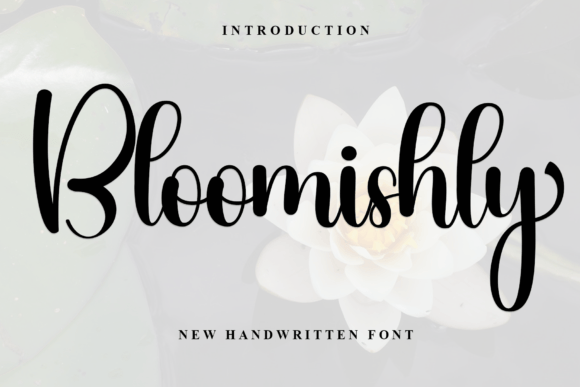
Bloomishly Font: Elevate Your Designs with Elegance and Sophistication
In the world of typography, a font can make or break the visual appeal of a design. For those seeking a touch of elegance and sophistication, the Bloomishly Font is an exceptional choice. This beautiful, refined handwritten font is perfect for creating stunning logos, branding materials, invitations, stationery, wedding designs, social media posts, and more.
The Essence of Bloomishly Font
Bloomishly Font is characterized by its classy, elegant, and modern appearance. Its refined strokes and beautiful ligatures make it an ideal choice for designers looking to add a touch of sophistication to their work. The font’s versatility allows it to be used across various design applications, from print to digital media.
Key Features of Bloomishly Font
- Handwritten Elegance: The font boasts a beautiful, handwritten appearance that adds a personal touch to any design.
- Classy and Modern: Bloomishly Font strikes the perfect balance between classic elegance and modern sophistication, making it suitable for a wide range of design projects.
- Versatile: From logos and branding to invitations, stationery, and social media posts, this font can be used across various design applications.
Applications of Bloomishly Font
The versatility of Bloomishly Font makes it an excellent choice for numerous design projects. Here are some of the ways you can utilize this beautiful font:
Design Applications
- Logos and Branding: Create a lasting impression with a logo that exudes elegance and sophistication.
- Invitations and Stationery: Add a touch of refinement to your invitations, business cards, and other stationery.
- Wedding Designs: Make your wedding designs truly special with a font that embodies love, elegance, and joy.
- Social Media Posts: Elevate your social media presence with beautifully crafted posts that showcase your brand’s personality.
Why Choose Bloomishly Font?
With numerous fonts available, why should you choose Bloomishly Font for your design projects? Here are some compelling reasons:
Why Bloomishly Font Stands Out
- Unique and Exclusive: Bloomishly Font offers a distinctive appearance that sets it apart from other fonts.
- High-Quality Design: The font is crafted with attention to detail, ensuring a high-quality appearance in any design.
Tips for Using Bloomishly Font Effectively
To get the most out of Bloomishly Font, consider the following tips:
Best Practices for Using Bloomishly Font
- Pair with Complementary Fonts: Combine Bloomishly Font with other fonts that complement its style to create visual interest.
- Adjust Font Sizes: Experiment with different font sizes to create a hierarchy of information and add depth to your design.
- Use Ligatures and Glyphs: Take advantage of the font’s ligatures and glyphs to add a personal touch to your design.
- Experiment with Colors: Try different color schemes to find the perfect combination that enhances your design.
Bloomishly Font is a beautiful, refined handwritten font that can elevate your designs with its classy, elegant, and modern appearance. Its versatility, PUA encoding, and high-quality design make it an excellent choice for various design applications. By following the tips outlined above, you can effectively use Bloomishly Font to create stunning designs that leave a lasting impression.